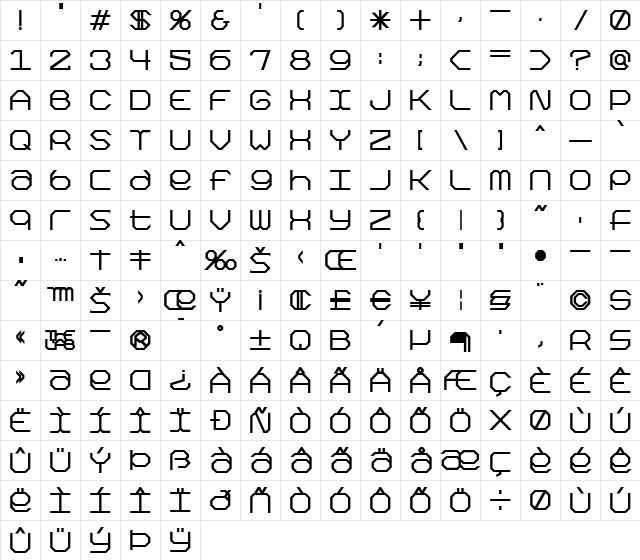
Kimono Kong Regular
Design Context for Kimono Kong Typeface
Kimono Kong uses fixed-width spacing throughout, giving it the structured, systematic character associated with coding environments and technical documentation.
A natural fit for code editors, technical documentation, developer-focused branding, and terminal-inspired UI.